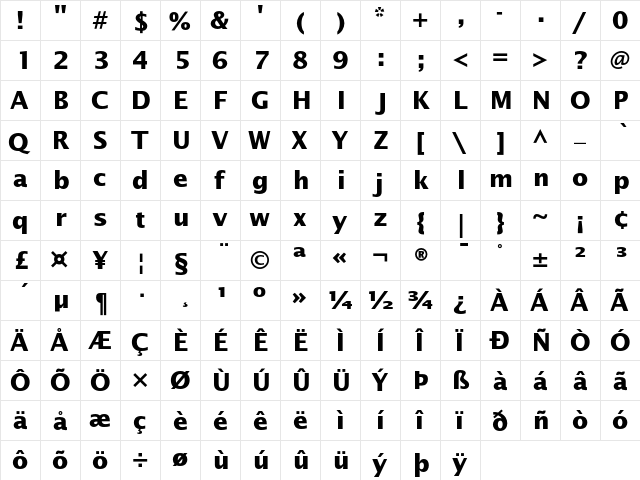
Lucida Sans Bold
Design Context for Lucida Sans Typeface
Lucida Sans offers clean, dependable letterforms without strong stylistic allegiance, making it a practical choice for designers who need flexibility. Its bold stroke weight gives it real presence on the page.
Pro Tip: Pair Lucida Sans with a font of contrasting weight or personality to build a more expressive typographic hierarchy.